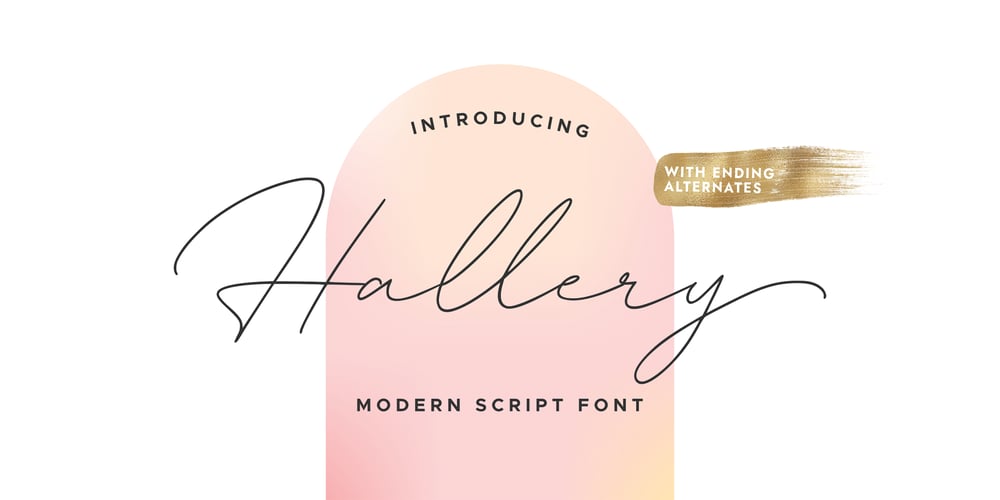
Hallery Font Family was designed by Tegar Hafizhal, Robby Hermawan and published by Carpiola Studio. Hallery contains 1 styles and family package options. Hallery is a lovely and timeless handwritten font. It is the best choice for creating eye catching logos, business card, branding and quotes. This font is PUA encoded which means you can access all of the glyphs and swashes with ease!